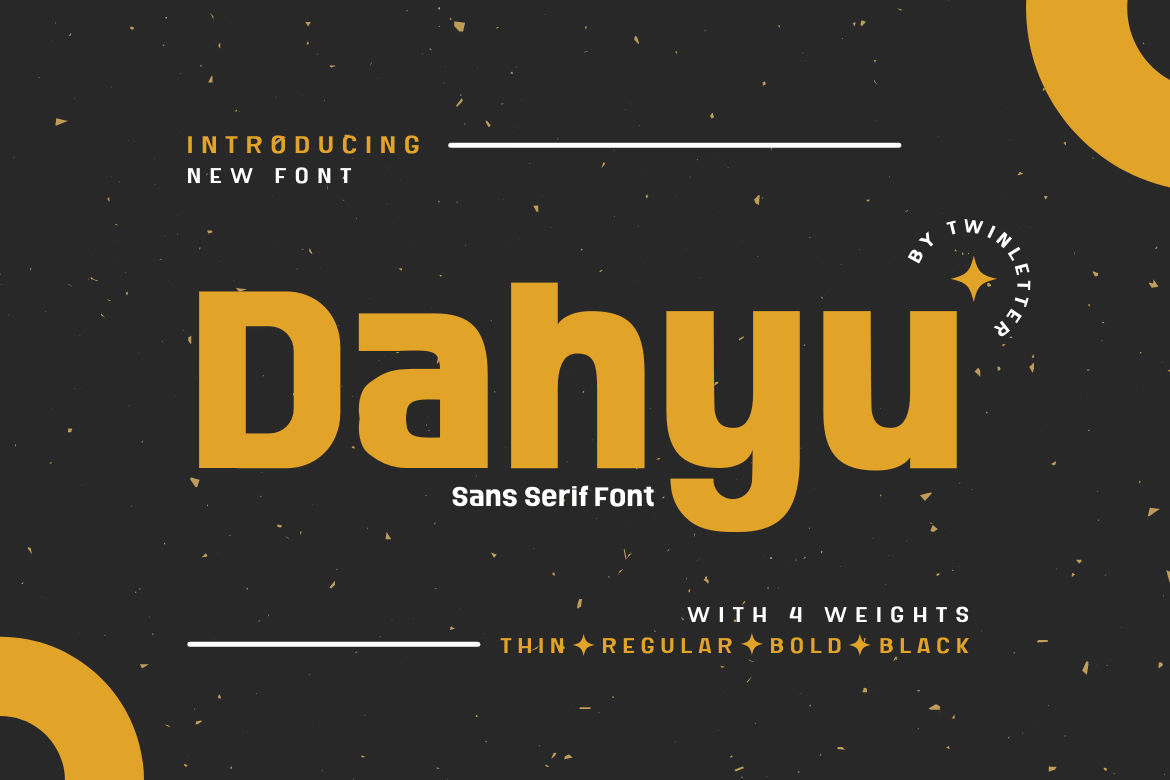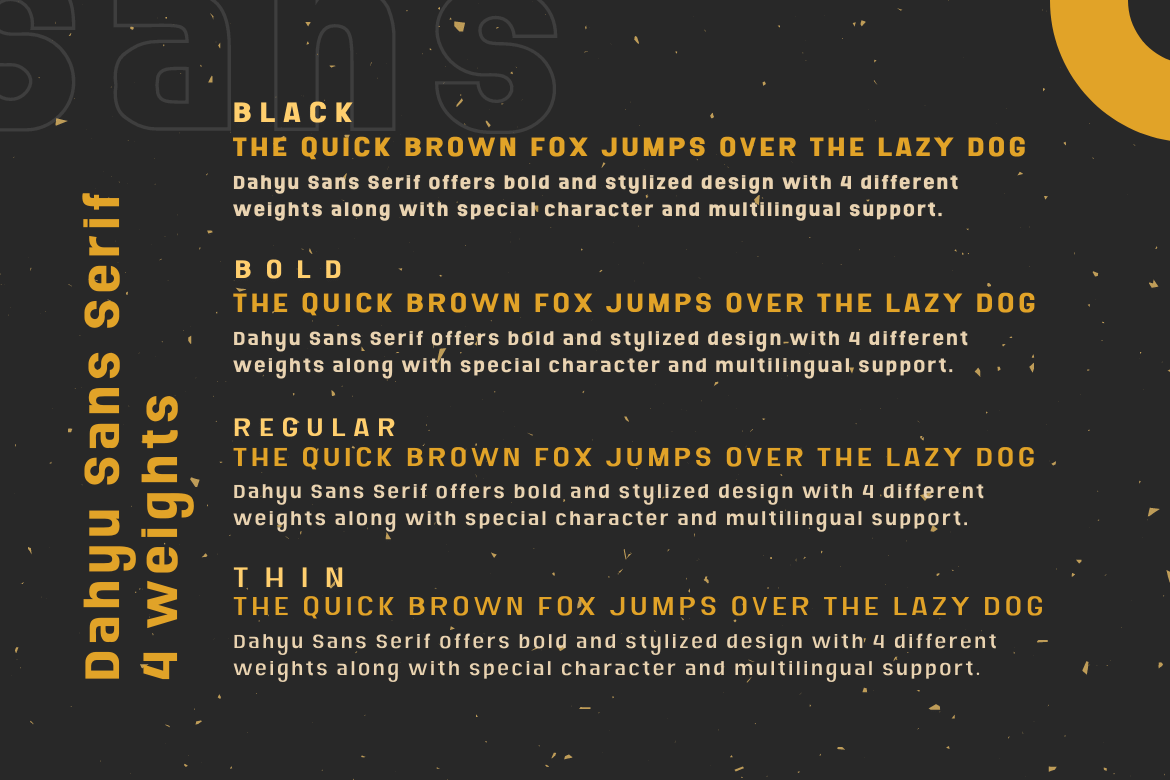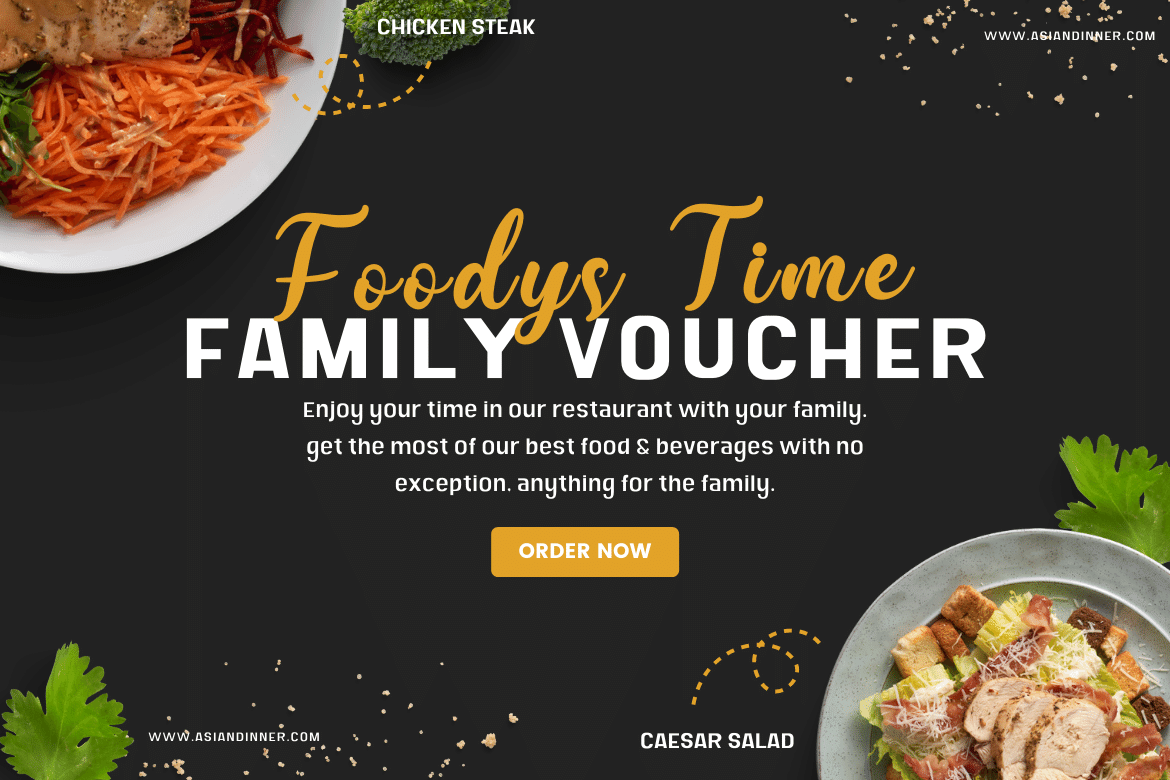
Dahyu Sans Serif Font
This is a one-of-a-kind sanserif font. This flexible typeface has a unique and harmonious personality that works well in headlines and paragraphs. It has a professional design with powerful, strong, and clean letterforms that offer uniqueness to even prolonged messages and deliver great branding impact.